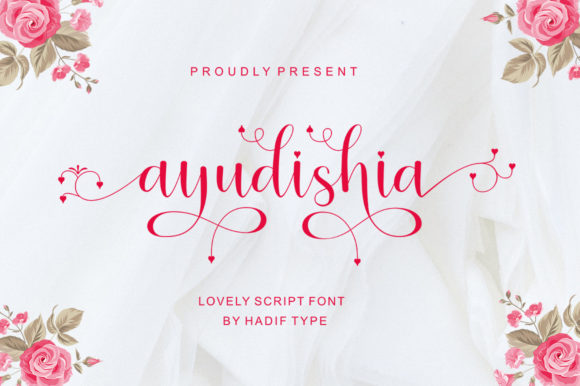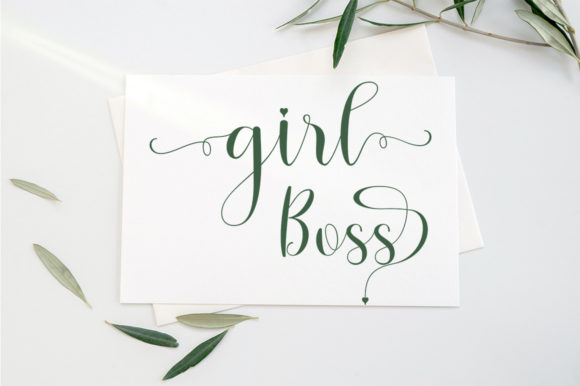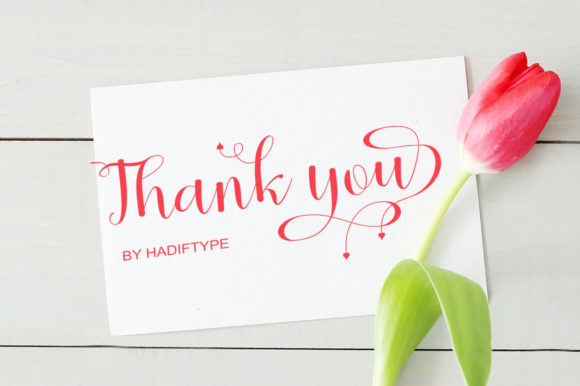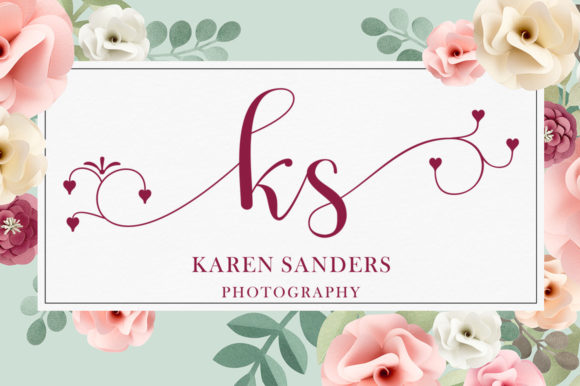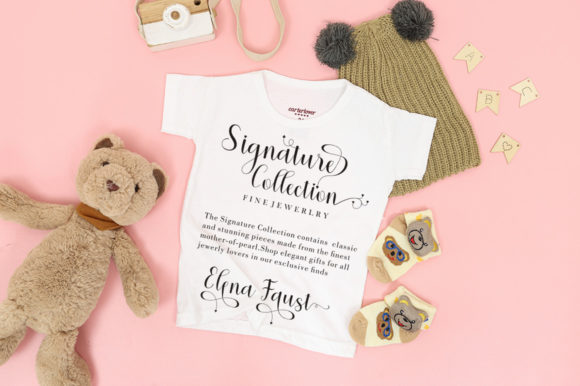
Ayudishia Font
About Ayudishia Font
Ayudishia is an elegant handwritten font. Inspired by timeless classic to modern calligraphy, balanced and varied, feels incredibly elegant and flowing. Fall in love with its incredibly versatile style and use it to create spectacular designs! This font is PUA encoded which means you can access all of the glyphs and swashes with ease!